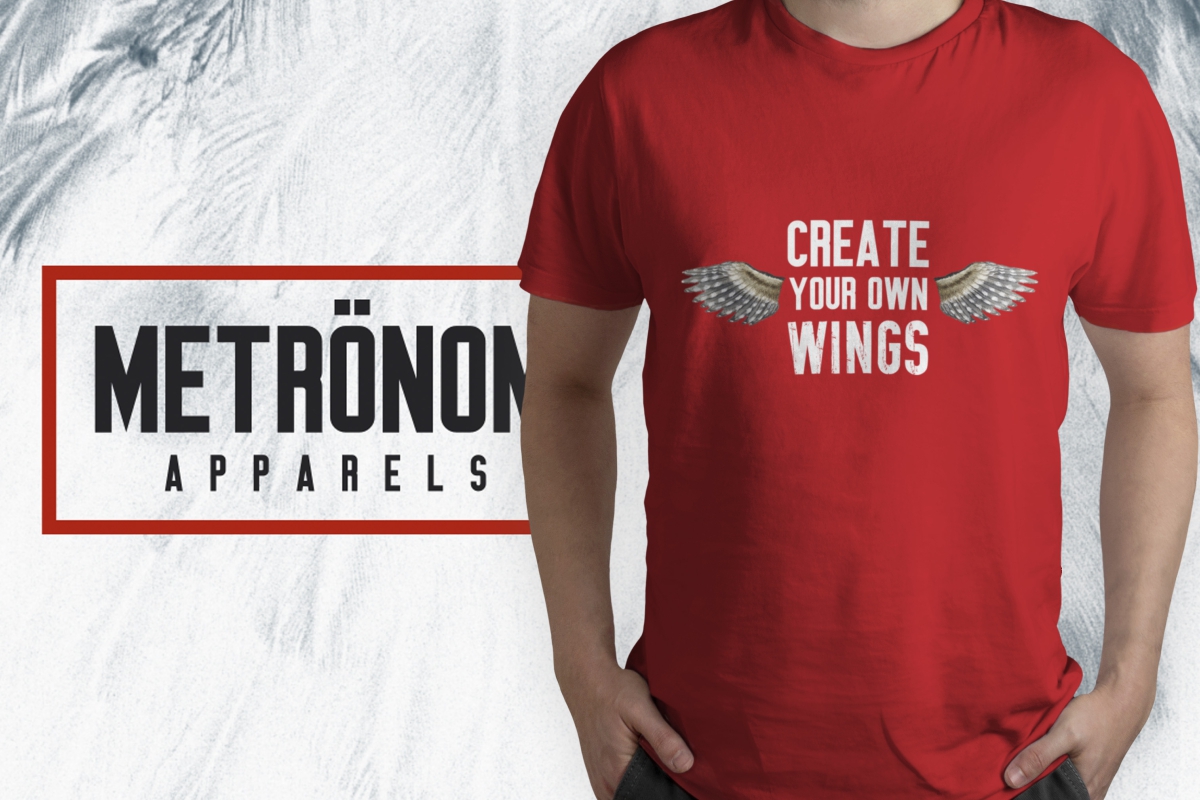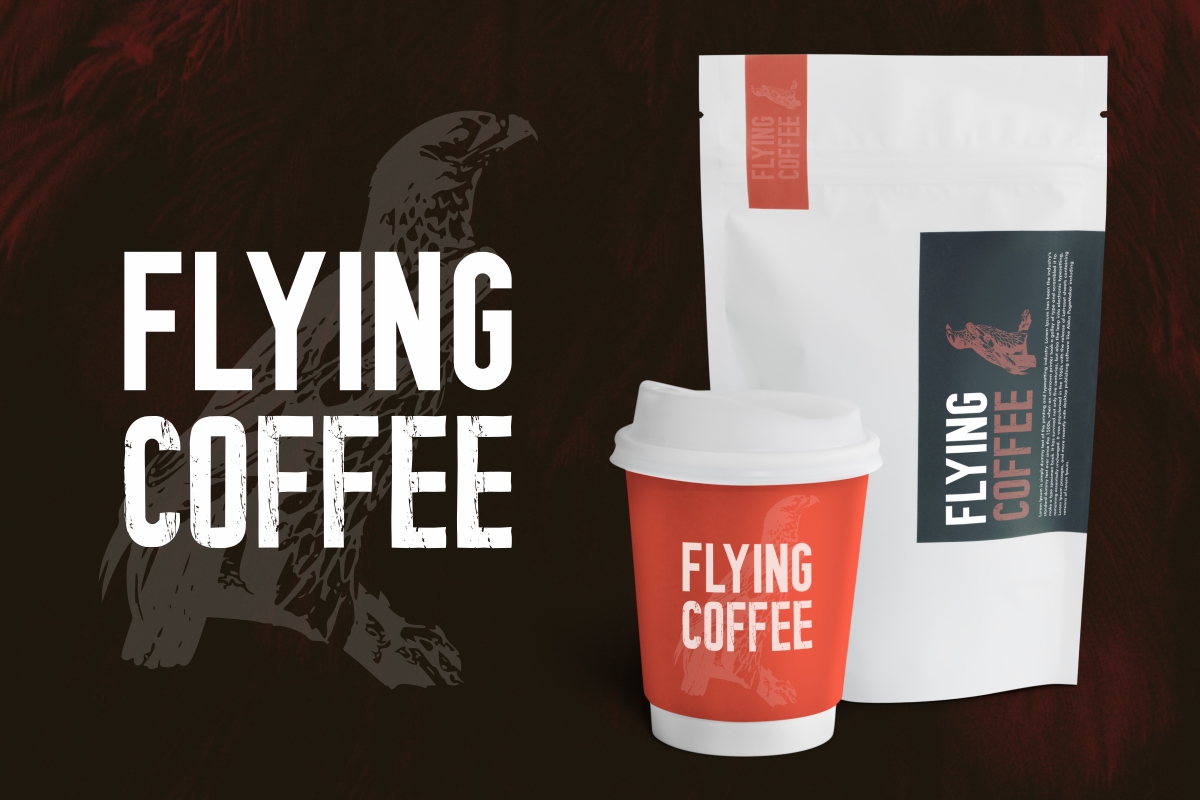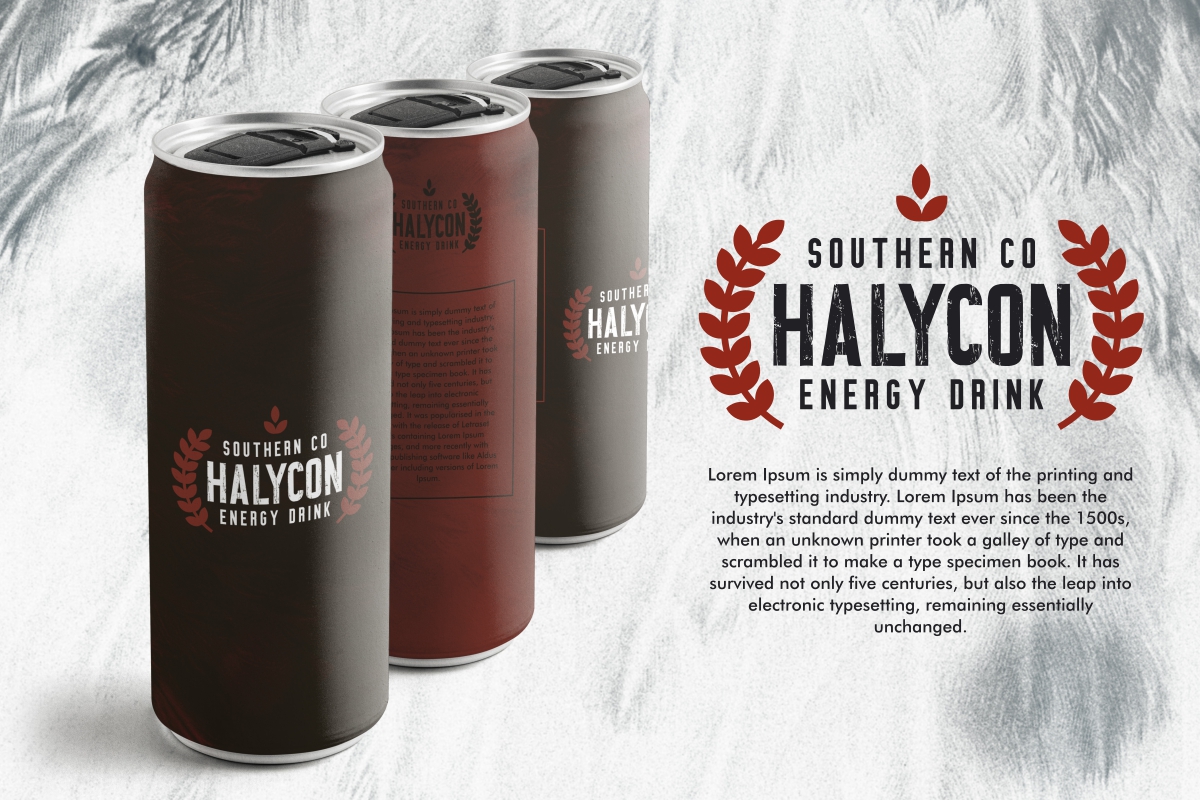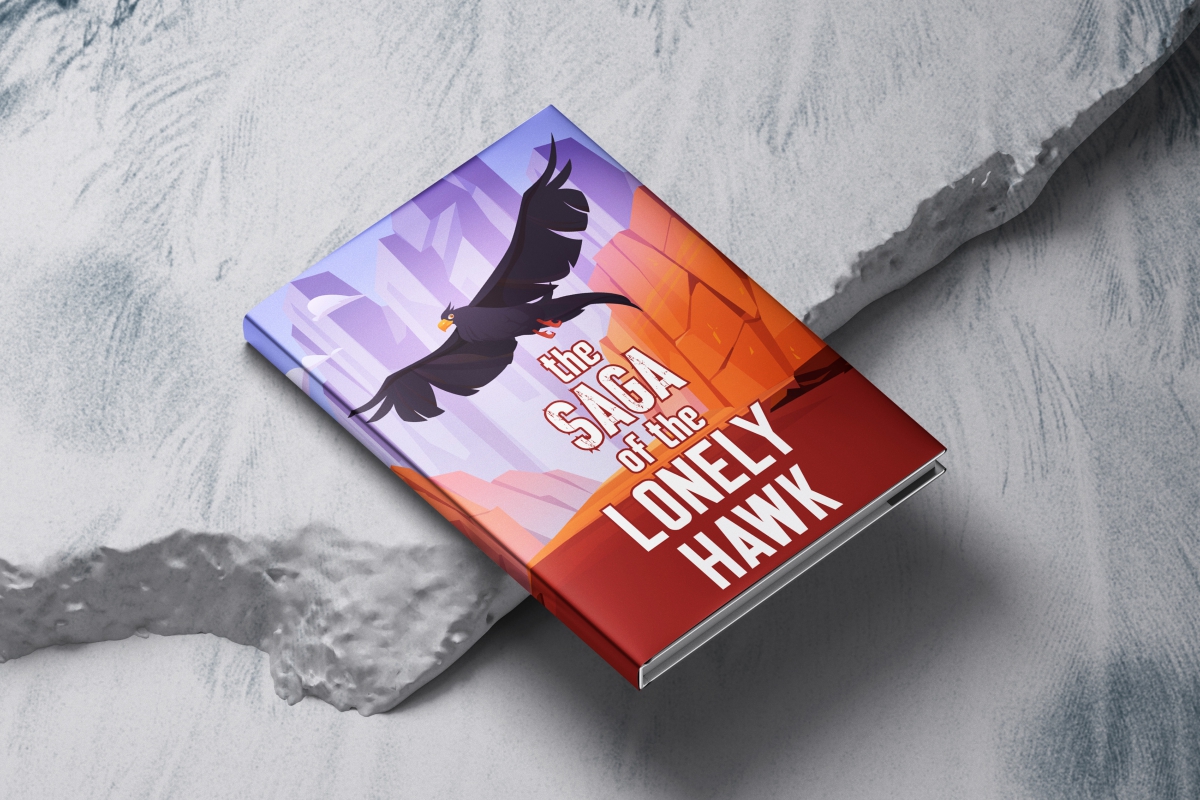
Bad Hawk Font
Bad Hawk Sans Serif Font
It’s a strong modern sans serif display font. The style of this font are strong, modern, grunge, techno, futuristic, manly, sporty etc. Great for logo, brandings, headlines etc.